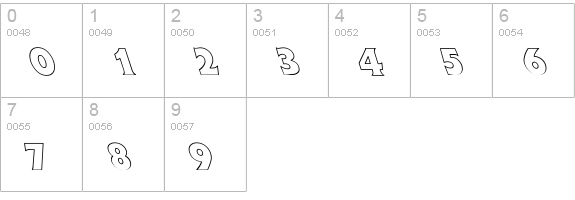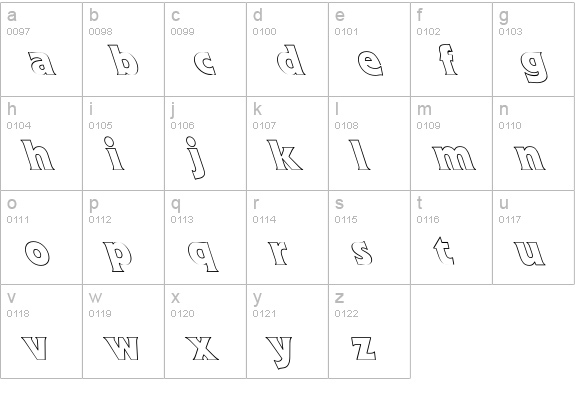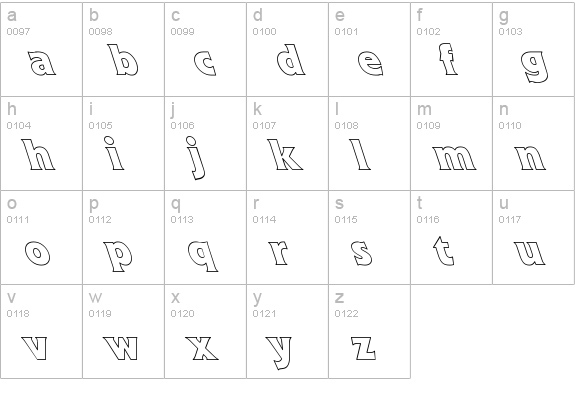
Flick Bold Hollow Lefty Font Details
Flick Bold Hollow Lefty is a strong, high-contrast variant in the Flick typeface family \xE2\x80\x94 well suited to headlines, attention-grabbing titles, and strong calls-to-action.
Flick Bold Hollow Lefty font is a modern and stylish typeface that exudes creativity and uniqueness. Its bold and hollow design adds a touch of sophistication to any project, making it perfect for logos, branding, headlines, and more. The left-handed slant of this font adds a playful and dynamic element, setting it apart from traditional fonts. What makes Flick Bold Hollow Lefty font even more appealing is that it is available for free download at FontsMarket.com. This means that you can easily access this eye-catching font without any cost, making it a fantastic choice for designers, creatives, and anyone looking to add a touch of flair to their projects. With its sleek and contemporary appearance, Flick Bold Hollow Lefty font is sure to make a statement and leave a lasting impression. So why wait? Download this versatile font today and elevate your designs to new heights.